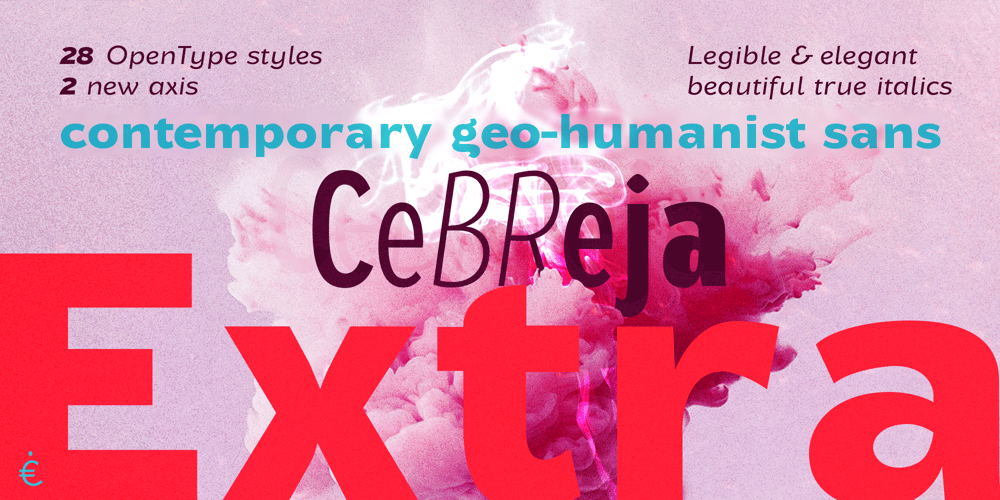
Cebreja Extra Font Family was designed by Rafael Ferreira and published by Rafaeiro Typeiro. Cebreja Extra contains 28 styles and family package options. Cebrreja is derived from the fusion of “cereja” (Cherry in English) and “br” for Brazilian. Named so because the font is crafted from Brazilian cherry wood, which allows for the creation of extremely narrow and significantly wider stems without compromising their structural integrity. This unique attribute enables precise and even ink distribution, as the wood’s density ensures durability and robustness over time. Additionally, the Brazilian cherry wood emanates a remarkably pleasant aroma, enveloping and captivating those who work with it. The distinctive scent adds a unique sensory dimension to the creative process, making the act of crafting with Cebrreja even more immersive.This font exudes expressive vitality, meticulously sculpted from wood to produce enduring and finely detailed stems.